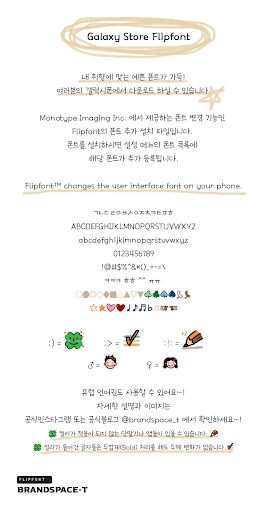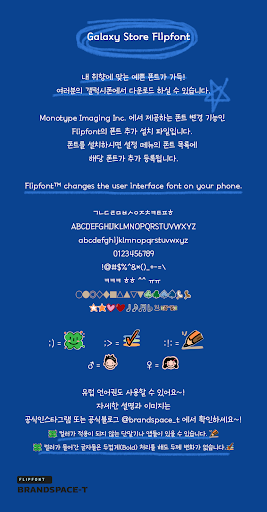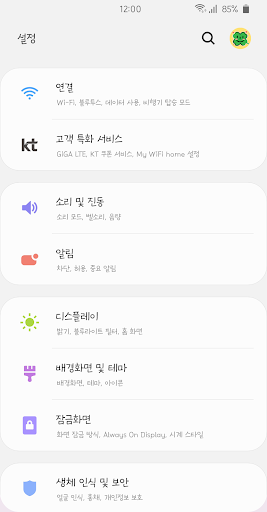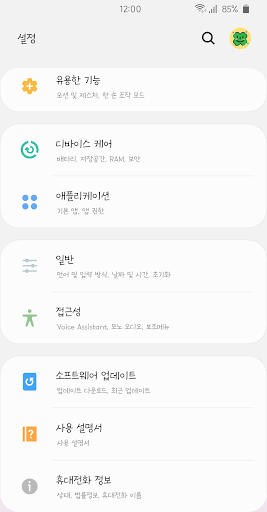
BSTToDoList
This typeface announces a thrilling new beginning and is a concept that ""small but practical things can bring you together to achieve great goals."" This is BSTToDoList, ""Soon, My, My Own Brand,"" with lively expressions with rhythmic strokes that tell us a hopeful tomorrow. Find the sensible hidden dingbets!
+ ;) A pretty smile that is the point dingbet of BrandSpace-T! A cute smile from Lucky Clover!
+ ;> ""Completion check"" Dingbet!
+ :!: ""Bottom line pencil"" Dingbet!
+ ♂ (boy) ♀ (girl) There is!
+ Colored letters do not change in thickness even if they are made thick.